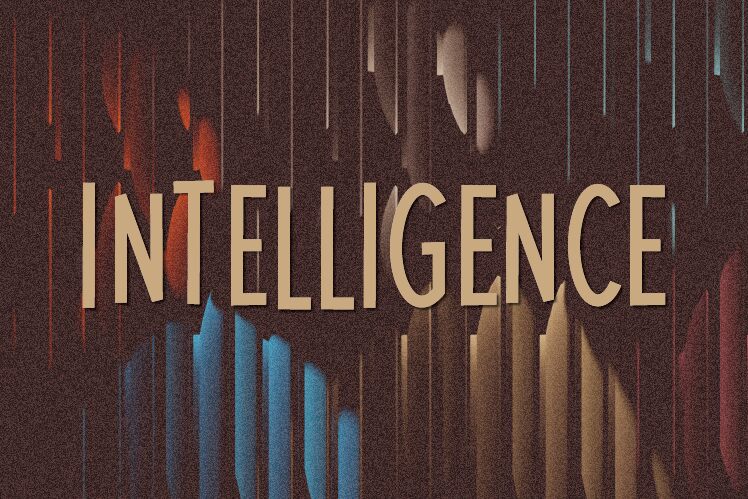
Intelligence
Intelligence font by HannaBie Creative Studio is a free comic display typeface with a stretched, nervy energy that instantly grabs the eye. The letters are tall, narrow, and a bit irregular, like they’ve been pulled upward by tension, giving headlines a slightly edgy, hand-made feel. It’s bold, inky, and graphic, with tight spacing that creates a solid, black ribbon of text—great when you need words to look loud and a little unhinged.
Using Intelligence, you can inject attitude into comic covers, zines, horror-comedy posters, YouTube thumbnails, event flyers, and bold book titles. This free font shines when set big and stacked in short phrases, where its vertical drama really lands. Pair it with a clean, neutral sans serif for body text to keep everything readable while Intelligence does the shouting up top.